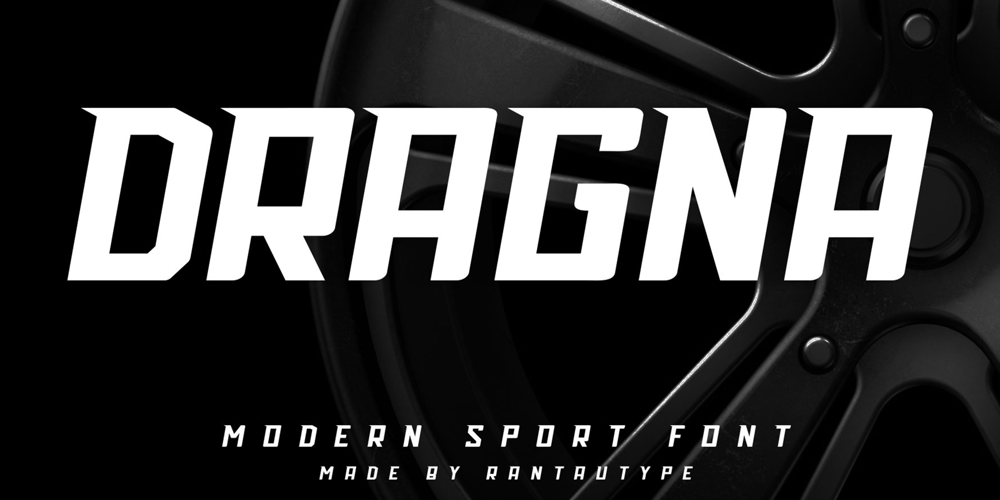
Dragna Font Family was designed by Yudi Pratama Chandra and published by RantauType. Dragna contains 1 styles and family package options. Dragna is sport font with italic wide letters, modern letter cutout and dynamic slant. Dragna Ideal for sports headline , logo esport and monogram of automotive game or other modern dynamic text. Dragna here to make your work to high level!!!Features: Standart letter A-Z and a-z Numberial and Functional Works on PC & Mac Simple installations Accessible in Adobe Illustrator, Adobe Photoshop, Adobe InDesign, even work on Microsoft Word. Thank you for your purchase!Hope you enjoy with our font!